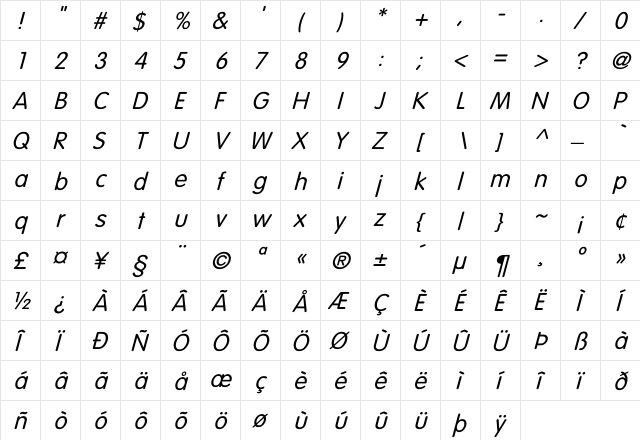
VAGRounded-Light Italic Regular Font Preview
Design Context for VAGRounded-Light Italic Typeface
VAGRounded-Light Italic uses gentle rounded endings to create a warm, inviting typographic personality — less corporate than geometric sans, more refined than playful display fonts. The slanted form adds forward momentum and visual energy. Its slender proportions lend an understated elegance to any composition.
Well-suited to UI design, mobile interfaces, and any brand that wants approachability without sacrificing clarity.
Font Pairing: Pairs well with a rounded or humanist sans for body copy, maintaining the friendly tone without relying on VAGRounded-Light Italic to carry extended reading.
Pro Tip: Use VAGRounded-Light Italic for UI elements, app interfaces, and anywhere a friendly, approachable tone needs to be maintained without sacrificing clarity.